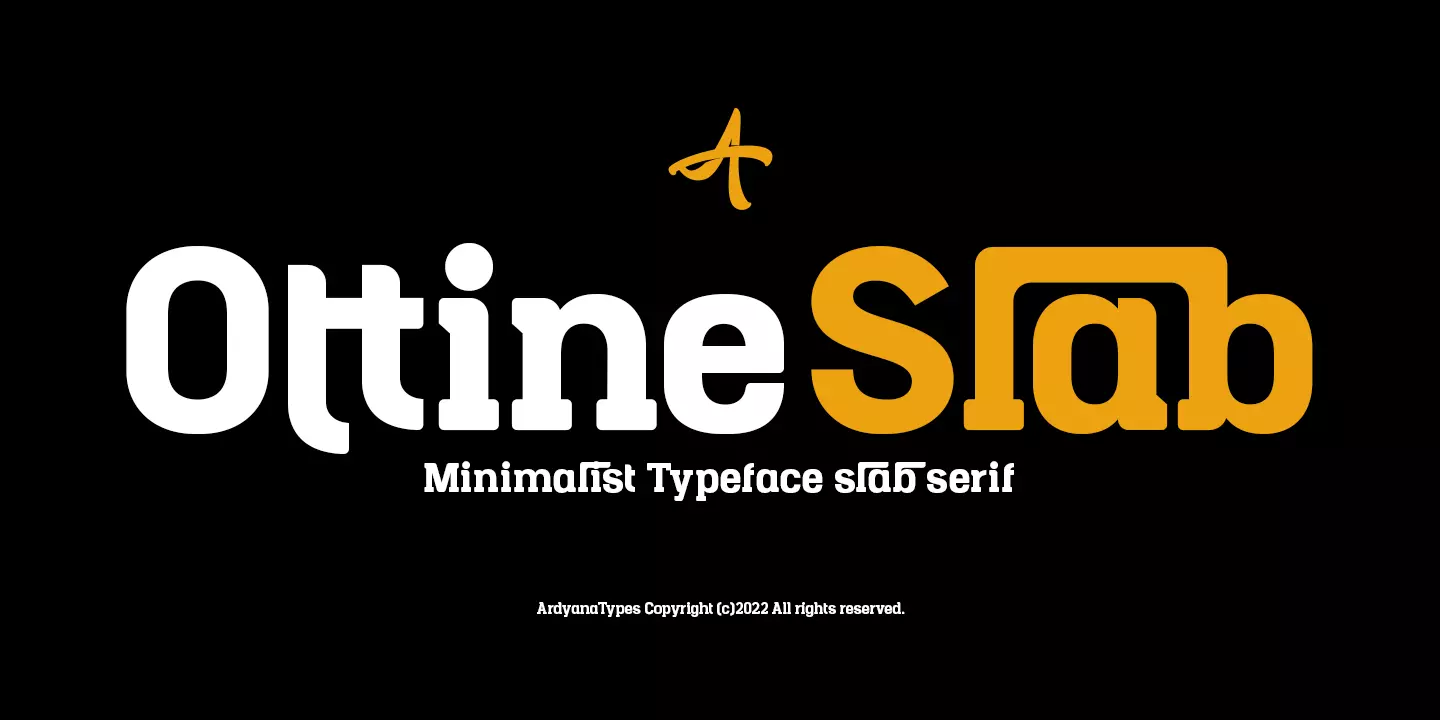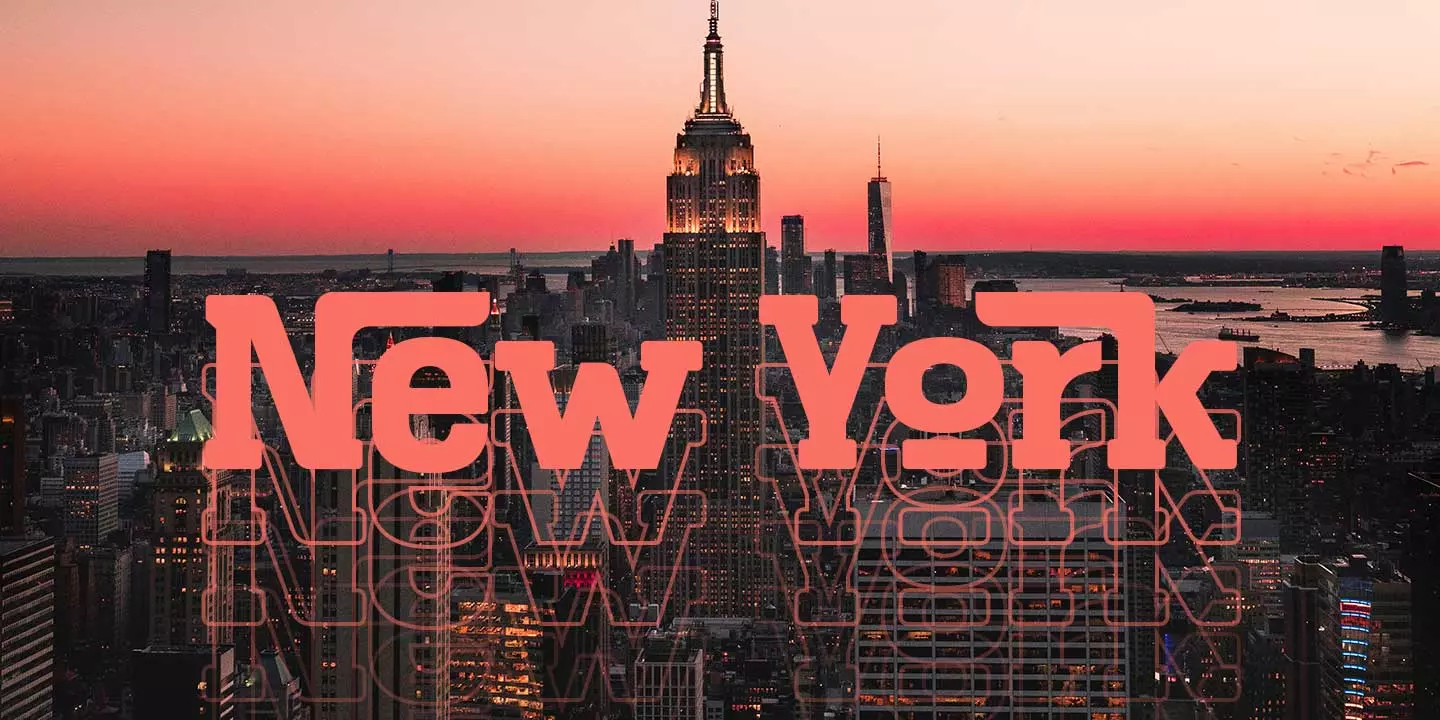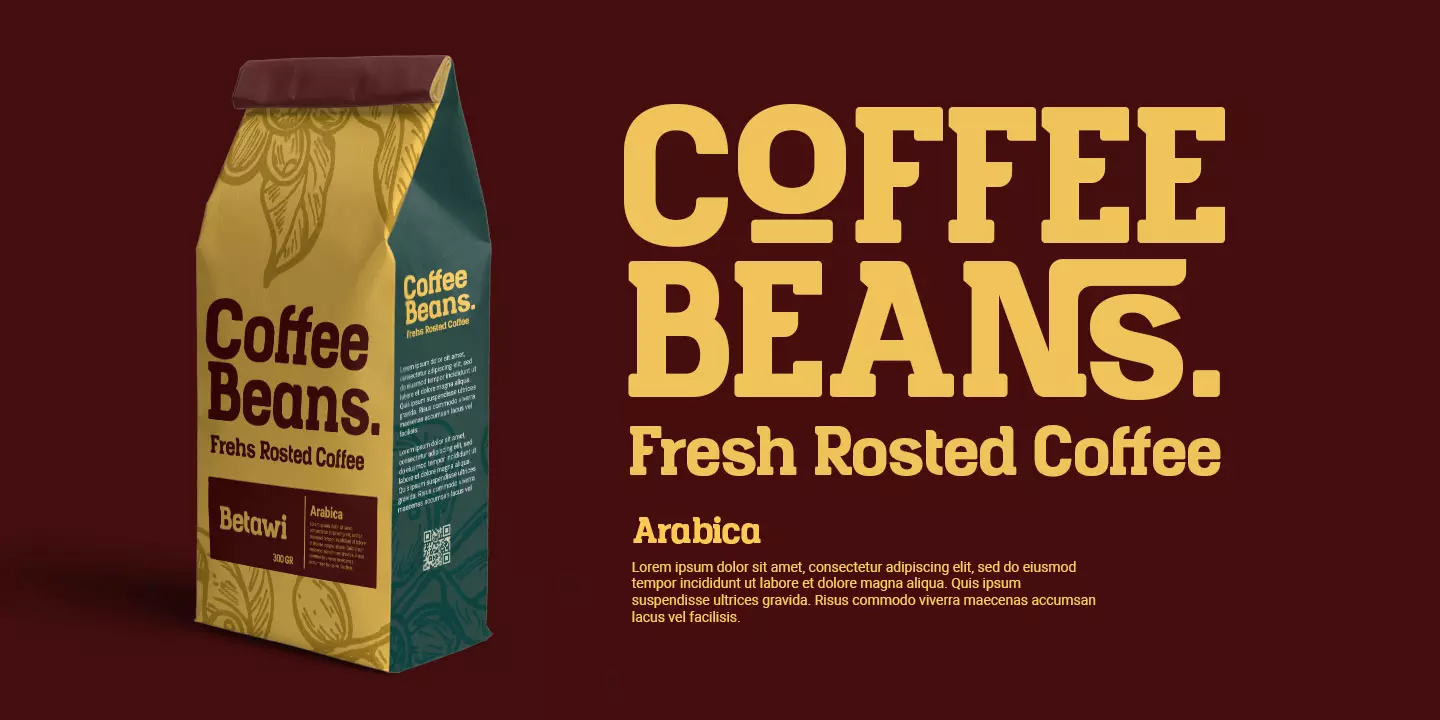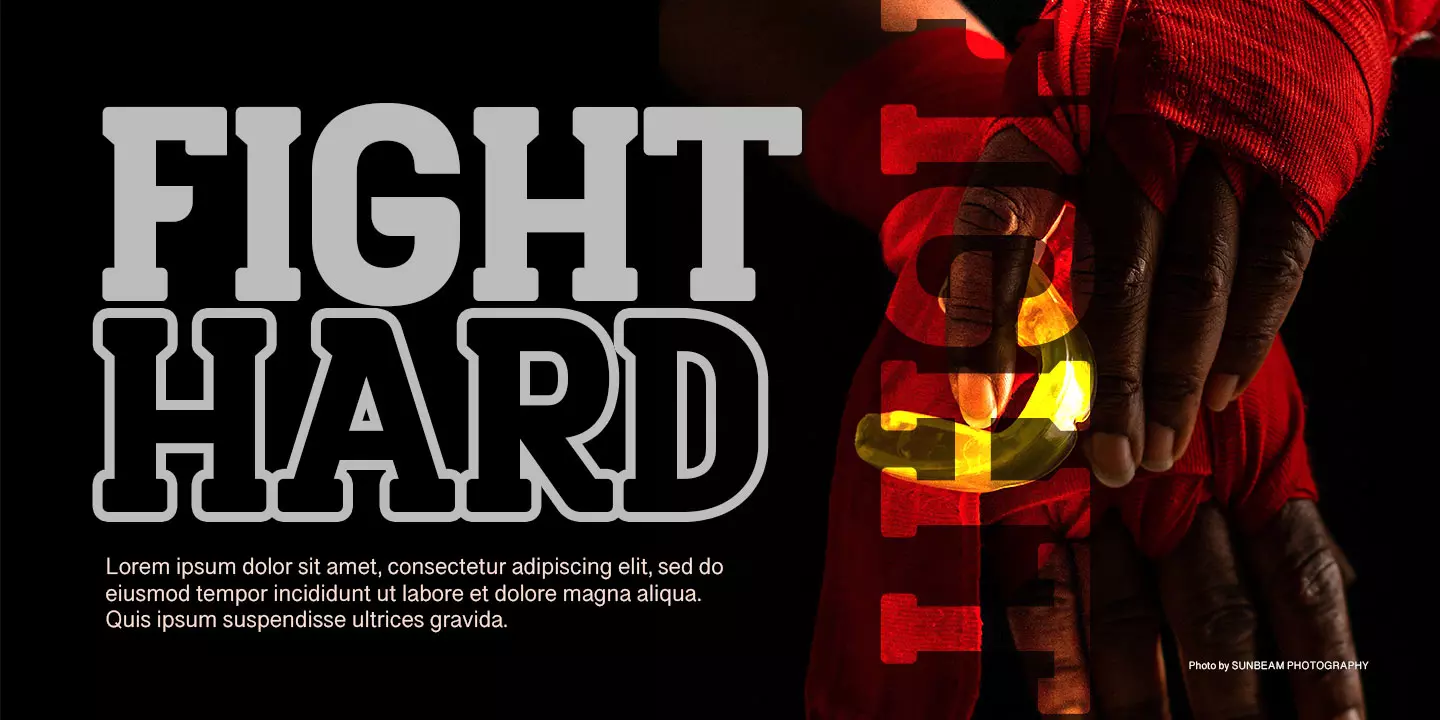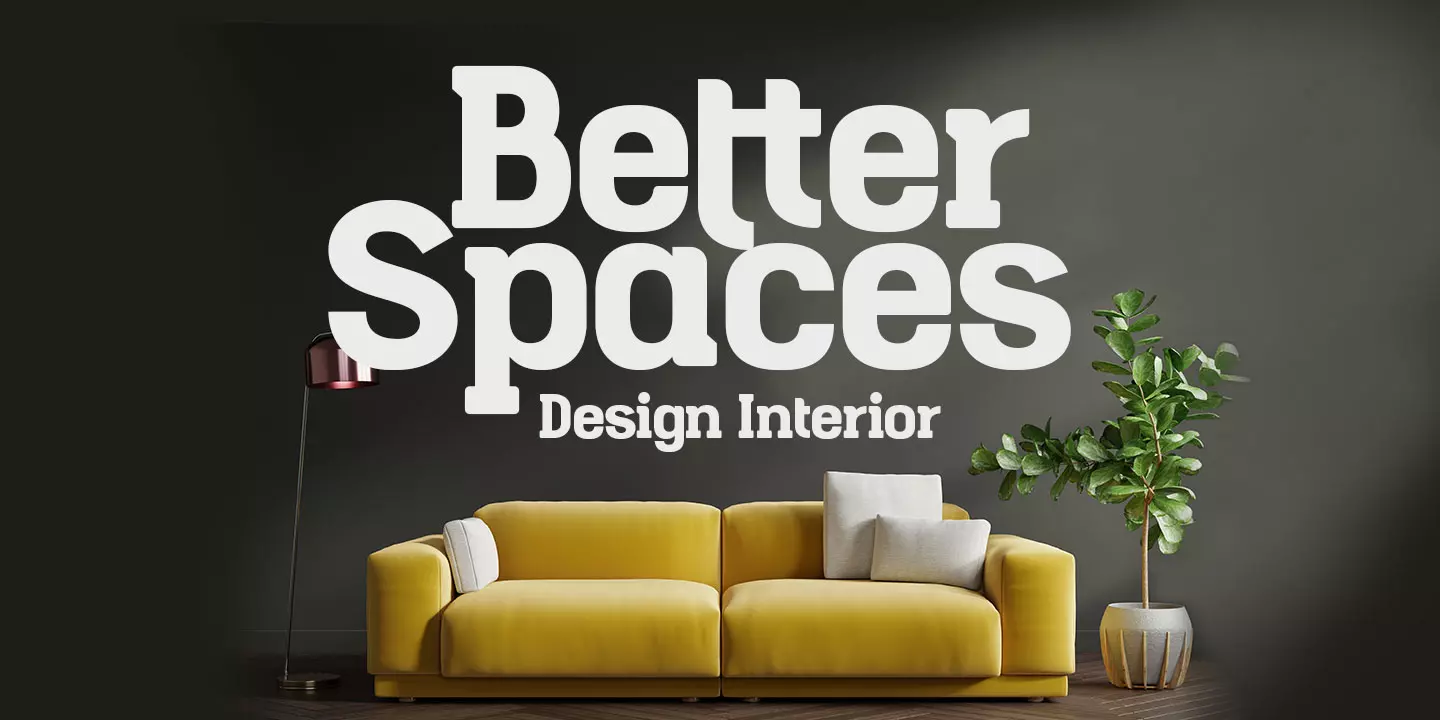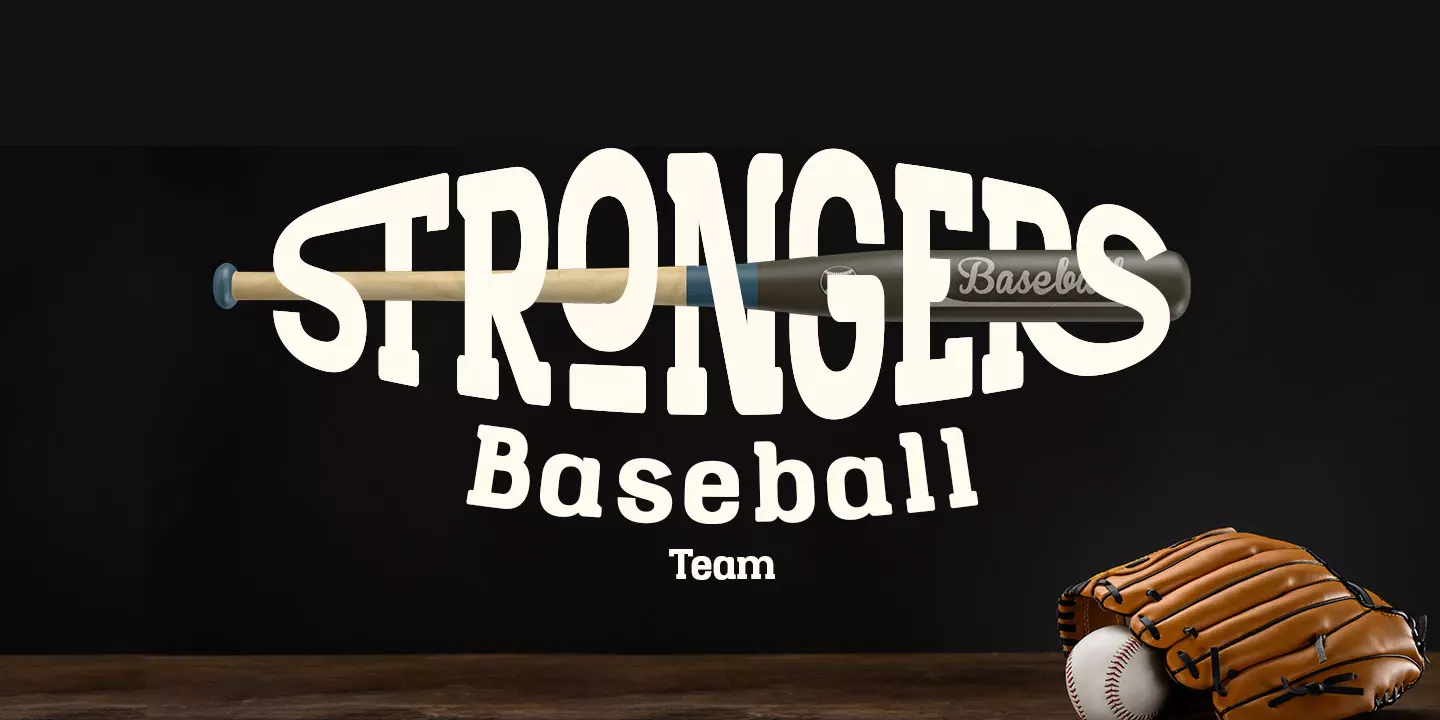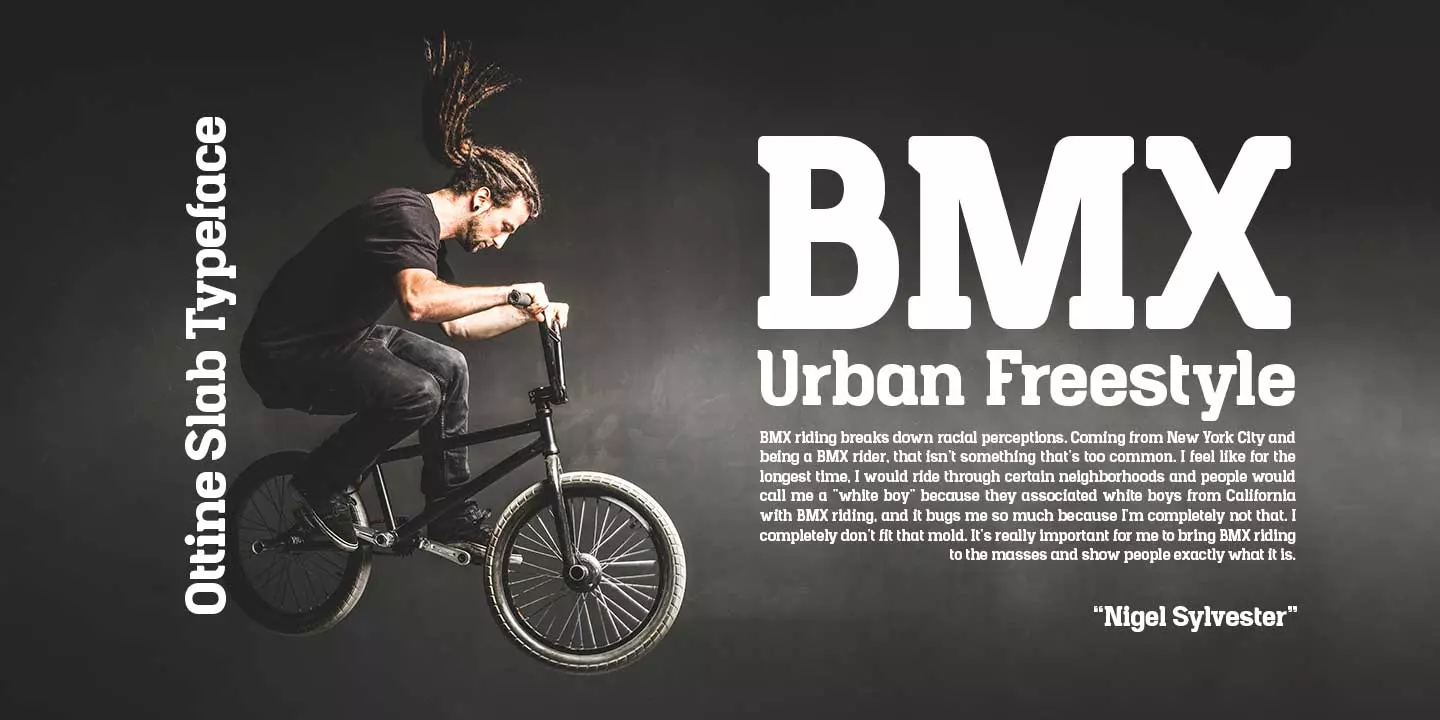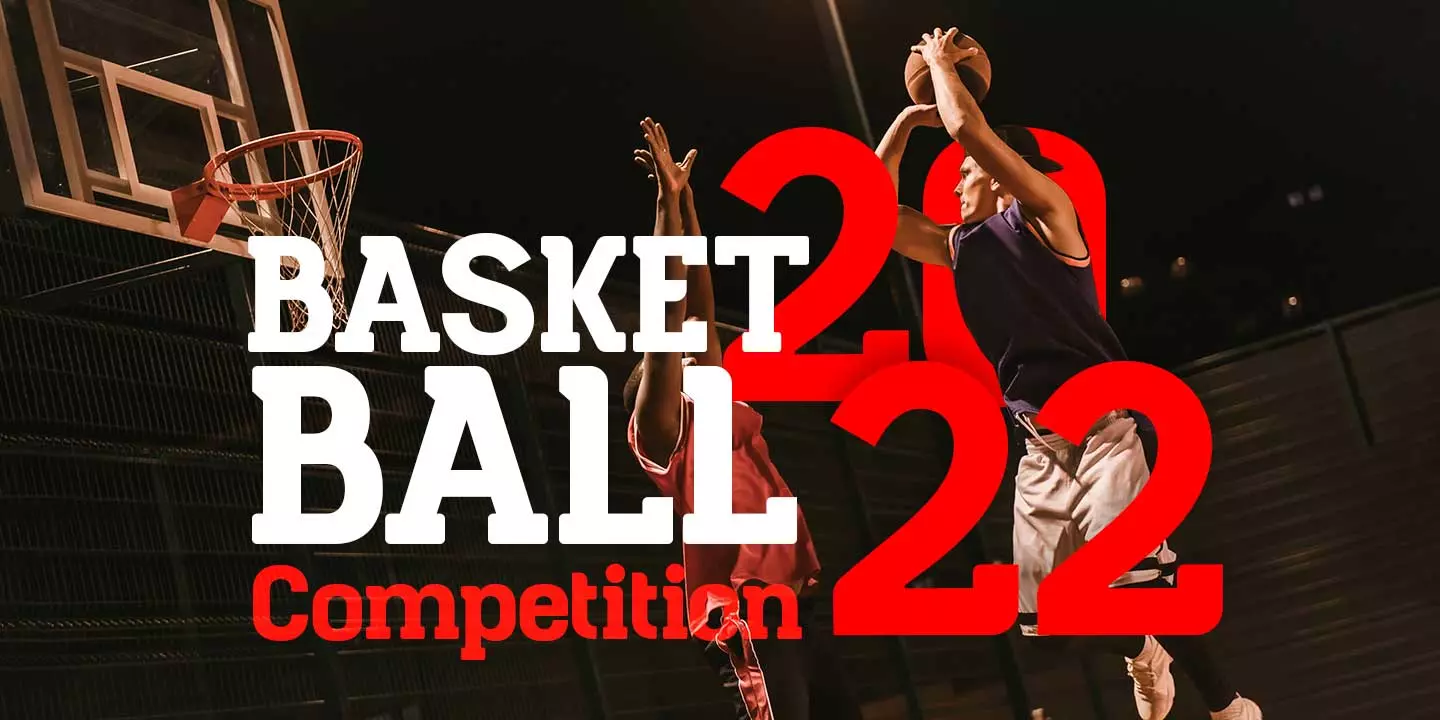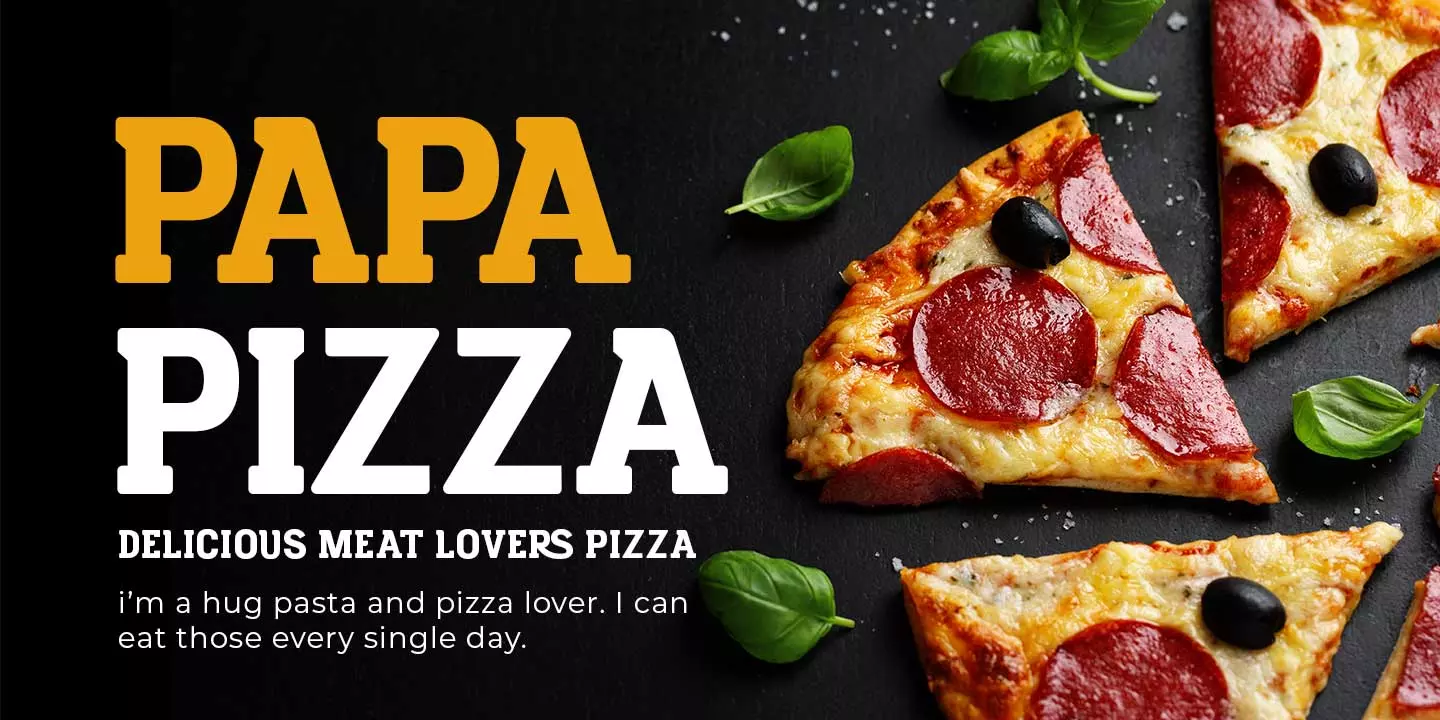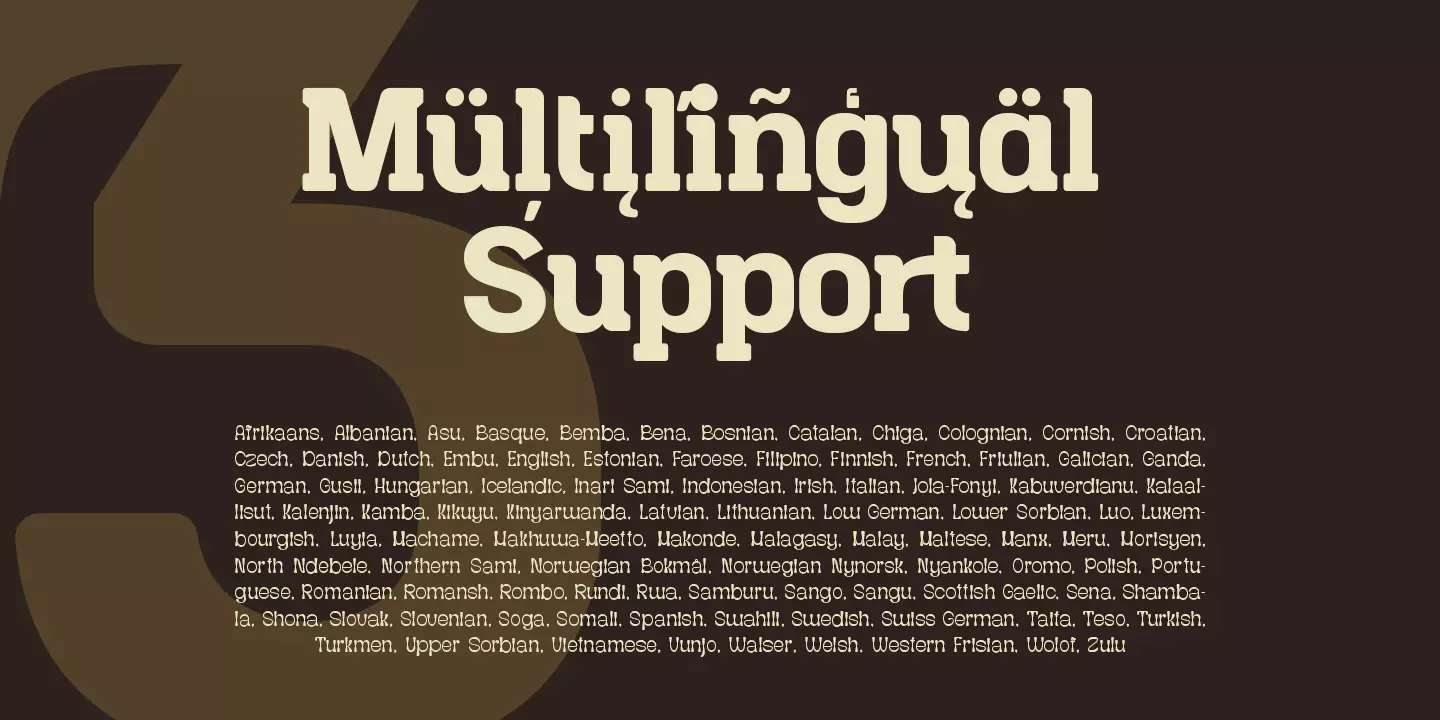
Ottine Slab Typeface
Ottine Slab Comes with a Slab Serif style typical of the 80s typeface, which gives a retro and classic style but has a unique and elegant style that gives an extraordinary impression. It is equipped with features to add a kind that makes the project impressionable. Ottine Slab is also equipped with various languages so that it allows Ottine Slab to be used in all your projects. Ottine Slab is very suitable for use in multiple purposes or projects, including Sport, Poster, Product, Logo, Branding, and many more that you can apply with this Ottine Slab Typeface.
• RS RS
• ST ST
• fl fl
• ft ft
• rt rt